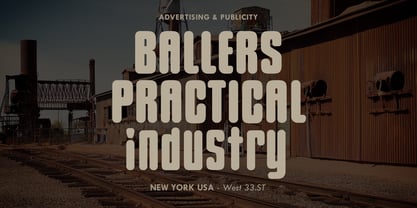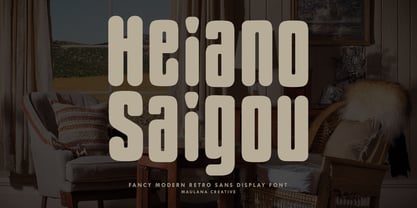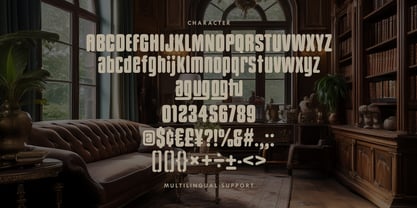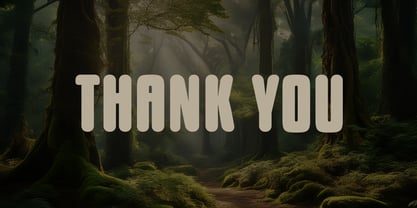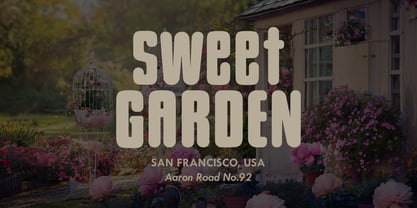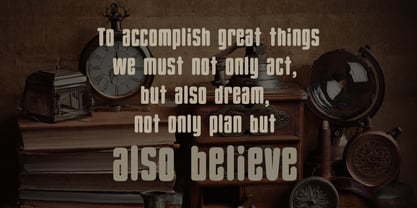
MC Heiano Saigou
by Maulana Creative
The MC Heiano Saigou Font Family was designed by Gilang Maulana and published by Maulana Creative. MC Heiano Saigou contains 1 styles. More about this family
Heiano Saigou is a fancy modern-retro sans display font that perfectly bridges the gap between classic vintage aesthetics and contemporary clean lines. Featuring a bold, condensed structure with smooth rounded corners, this font is designed to make a powerful statement while maintaining a friendly and approachable vibe. Whether you are working on industrial branding, chic editorial layouts, or vibrant social media, Heiano Saigou provides the versatility you need. Its unique character shapes especially in the lowercase descenders add a custom, hand-lettered feel to any project.
Designers: Gilang Maulana
Foundry: Maulana Creative